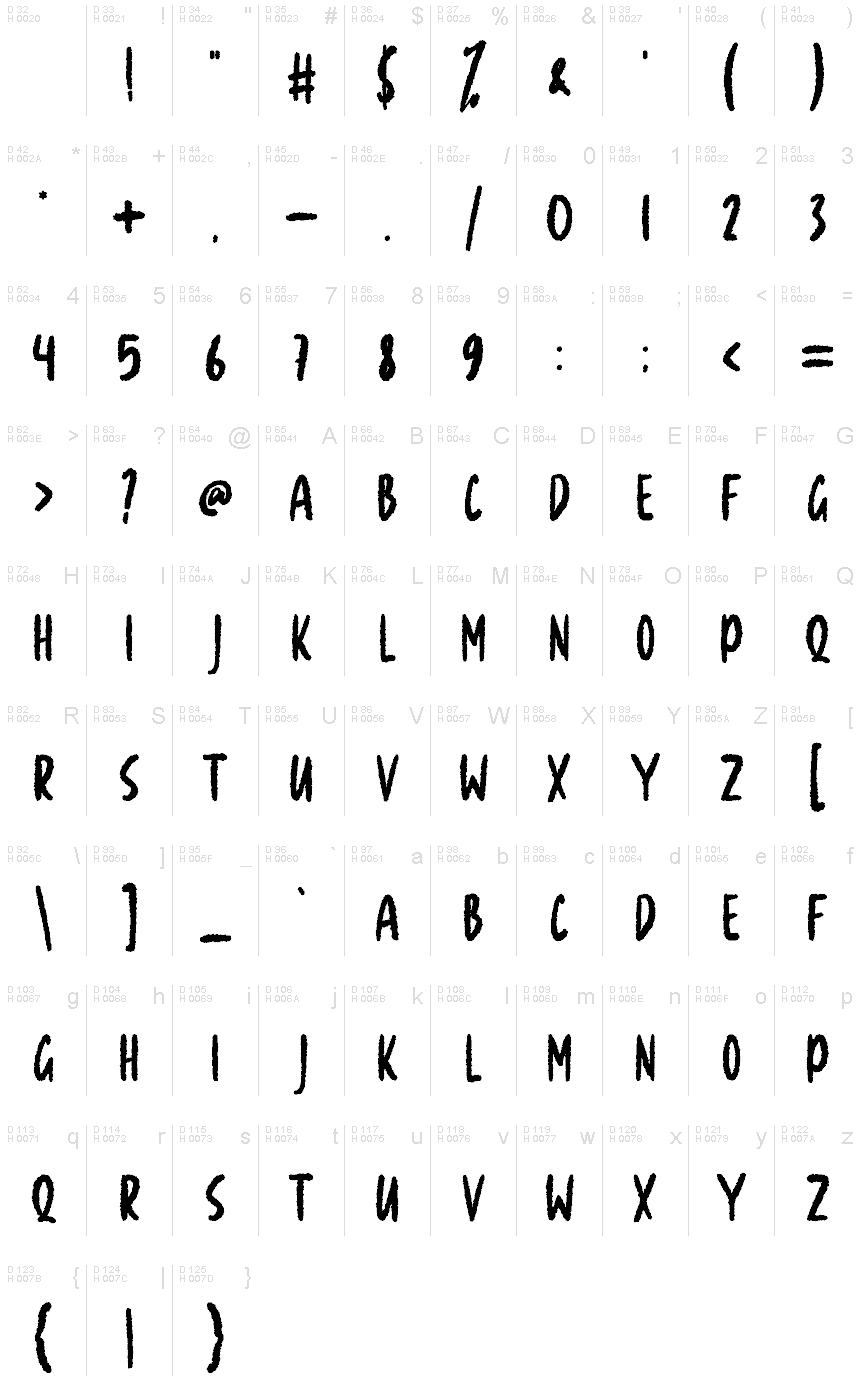
Metalien
Metalien font by Skiiller Studio is a condensed brush font with a rugged texture and irregular outlines that create a high-impact aesthetic. Its distressed appearance gives off an edgy mood, ideal for making bold statements and captivating your audience. Use it for your headings, posters, flyers, apparel designs, branding projects, packaging designs, social media posts, or web design.